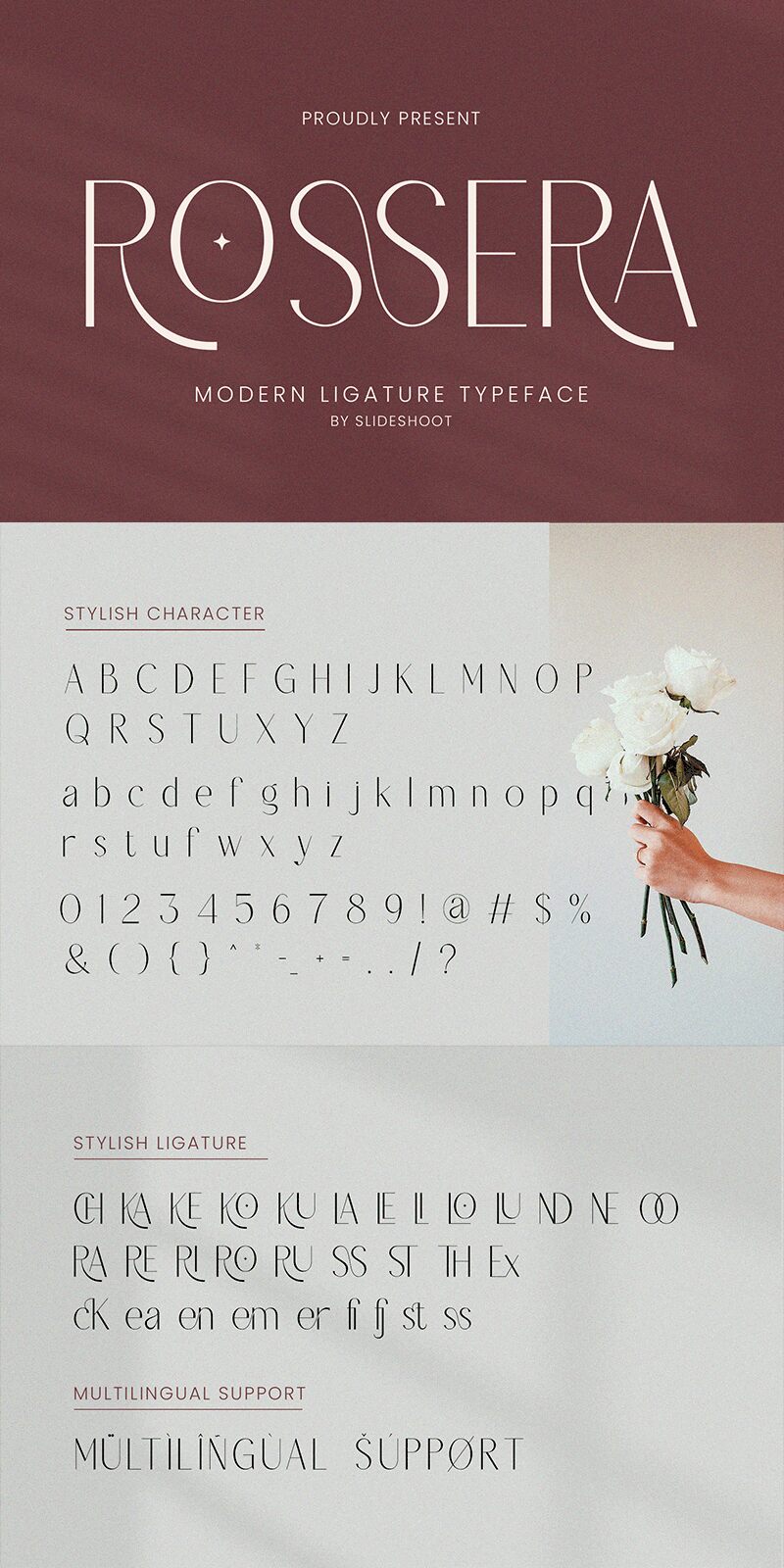
Rossera
Rossera font is a light elegant serif designed by Ahmad Riqi. The extremely high contrast lines give the Modern font an enchanting vibe and unique quality. Barely noticeable ends on letter strokes, as well as minimalist touches, distinguish Rossera from mainstream examples of the style.